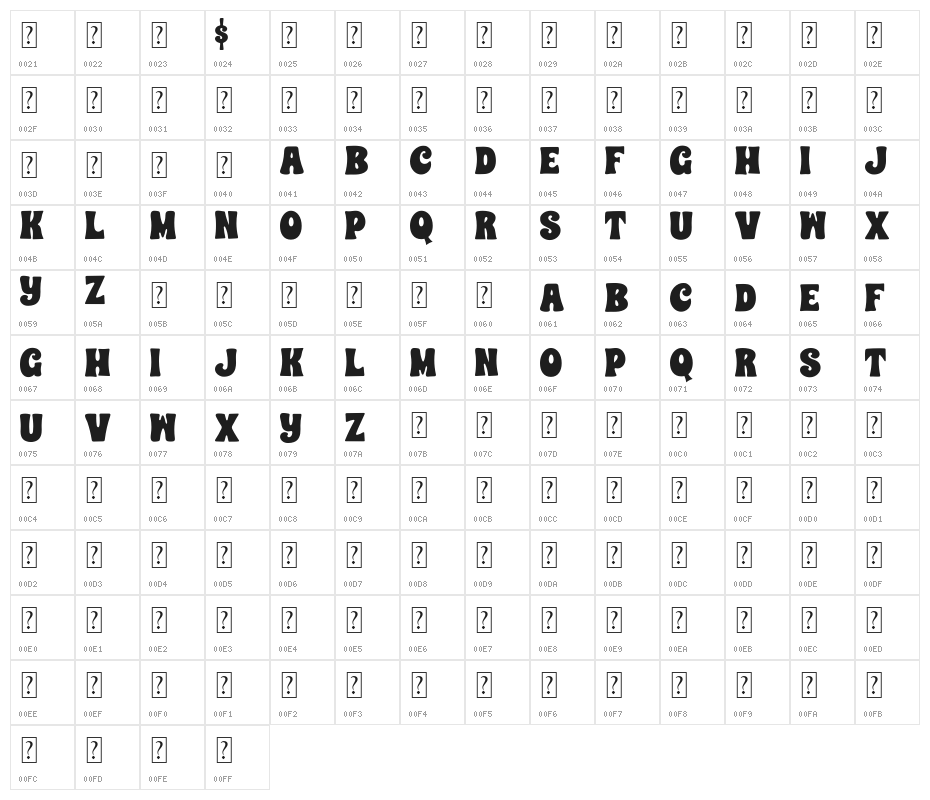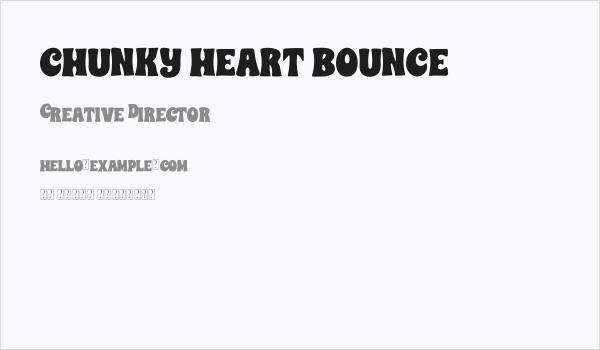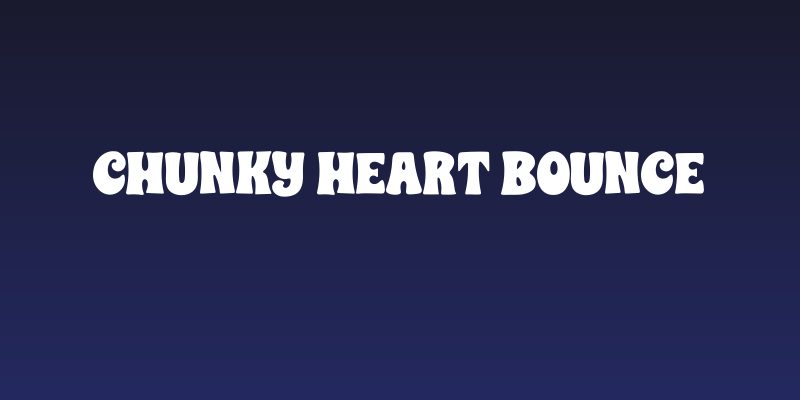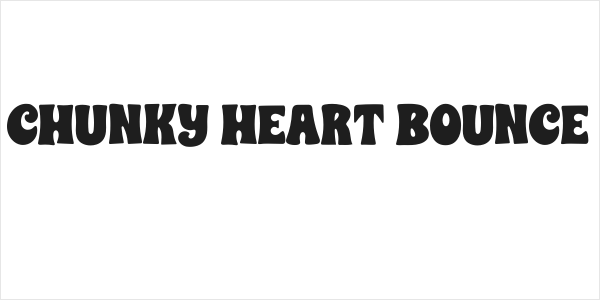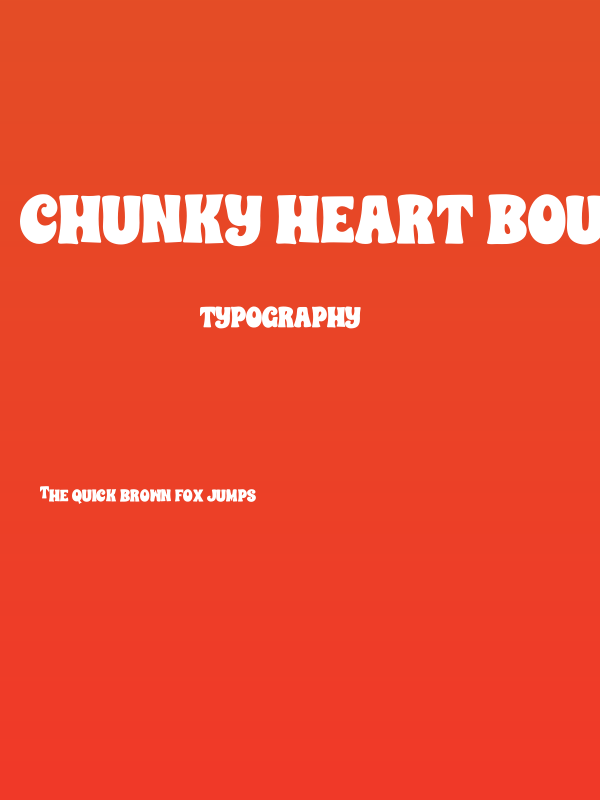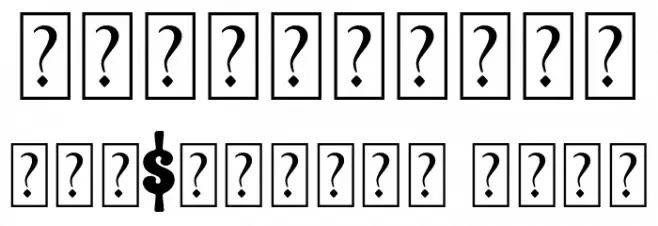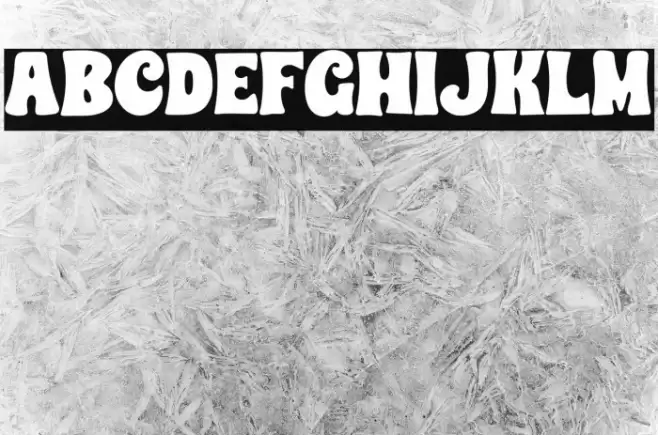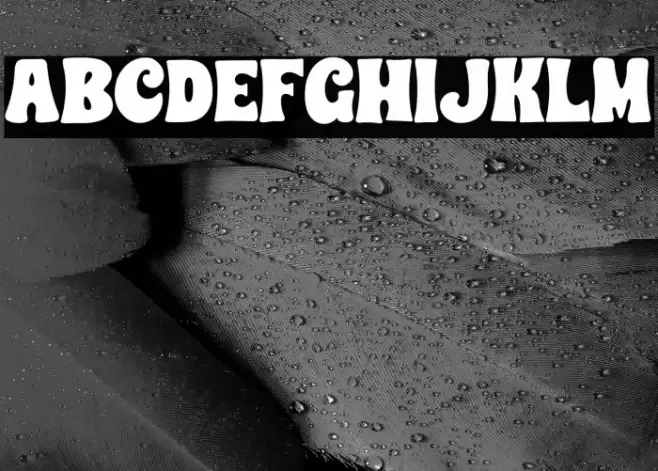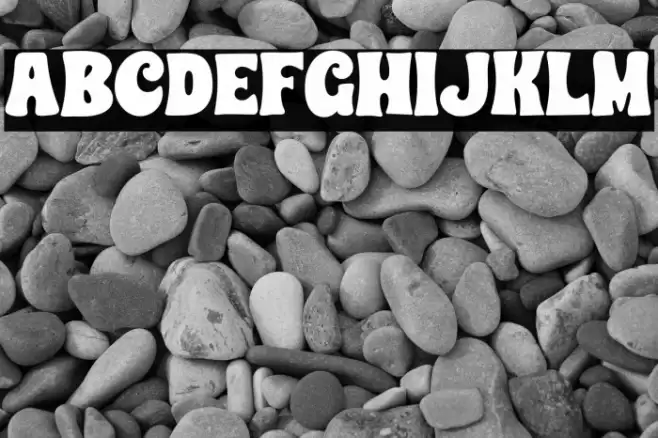
CHUNKY HEART BOUNCE Font
This font features a bold and playful design with exaggerated, rounded forms that give it a bouncy and lively appearance. The characters are thick and substantial, with a whimsical touch that makes them stand out. The uppercase and lowercase letters maintain a consistent style, with a slight irregularity in the strokes that adds to the font's charm. The special characters are designed to match the playful nature of the alphabet, making them suitable for creative and fun projects. The overall look is eye-catching and ideal for designs that require a strong visual impact.
| Overall Style | Playful, Whimsical |
| Proposed Projects | Ideal for children's books, playful branding, party invitations, and creative posters. |